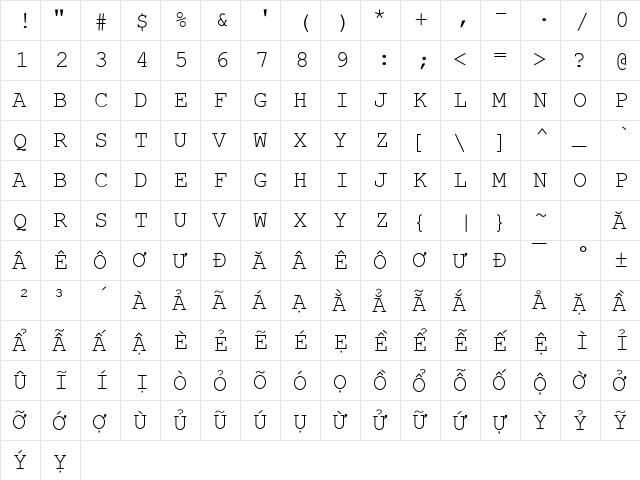
.VnCourier NewH Regular
Design Context for .VnCourier NewH Typeface
.VnCourier NewH brings the precise, column-aligned rhythm of monospaced typography to designs that value technical clarity and systematic order.
Pro Tip: Use .VnCourier NewH with slightly increased line-height for extended reading — fixed-width spacing can feel dense in longer passages without extra breathing room.